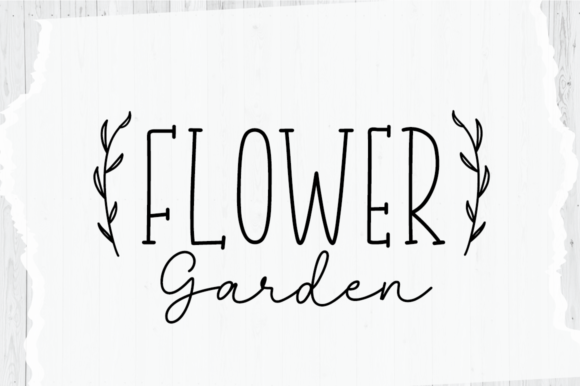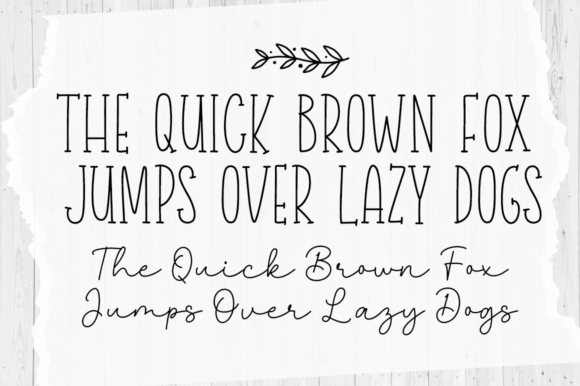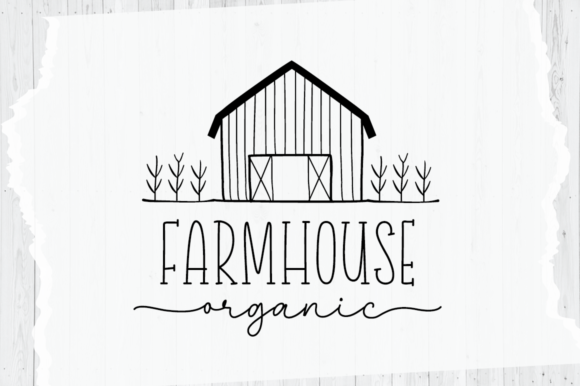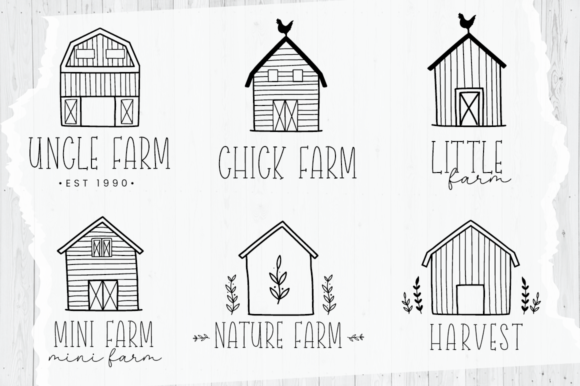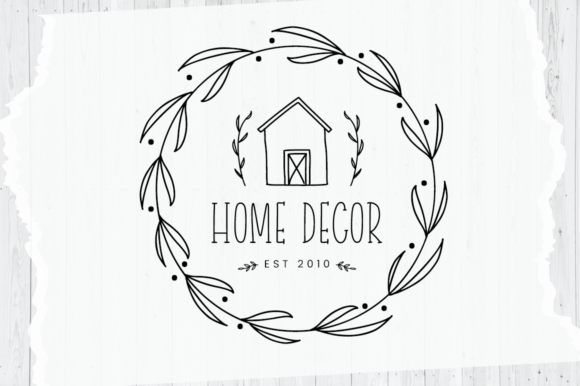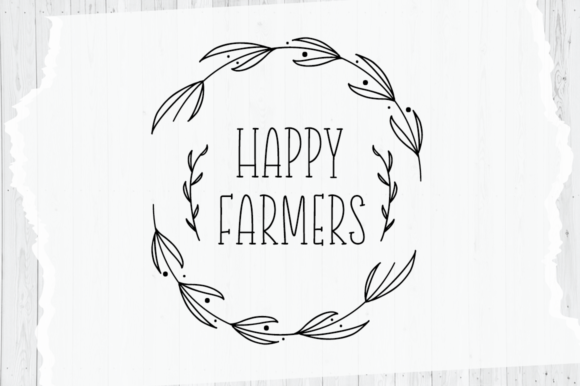
Introducing Family Farmhouse Font: Elevate Your Craft with a Chic and Cheerful Touch
Are you a designer, crafter, or DIY enthusiast looking for the perfect font to add a touch of warmth and personality to your projects? Look no further than the Family Farmhouse Font, a beautifully designed font duo that is sure to become your go-to choice for all your crafting needs.
A Perfect Pair: Two Fonts Designed to Complement Each Other
The Family Farmhouse Font consists of two fonts that are designed to complement each other perfectly. Whether used together or separately, these fonts are ideal for adding a chic and cheerful touch to your craft. The fonts feature a unique and stylish design that is reminiscent of traditional farmhouse signs, with a modern twist that makes them perfect for a wide range of projects.
The Family Farmhouse Font is perfect for a wide range of projects, from crafting and DIY to graphic design and digital art. Here are just a few examples of the many creative possibilities:
- Create beautiful handmade cards and invitations for special occasions
- Design eye-catching signs and labels for your craft business or home
- Add a personal touch to your digital art and graphics
- Make stunning scrapbook pages and photo albums
- Design gorgeous packaging and branding for your products
Why Choose the Family Farmhouse Font?
So why choose the Family Farmhouse Font over other fonts on the market? Here are just a few reasons why this font duo stands out:
- Unique and stylish design: The Family Farmhouse Font features a one-of-a-kind design that is sure to make your projects stand out
- Highly versatile: The font duo can be used for a wide range of projects, from crafting and DIY to graphic design and digital art
Tips for Using the Family Farmhouse Font
Here are a few tips for getting the most out of the Family Farmhouse Font:
- Experiment with different font combinations: Try pairing the Family Farmhouse Font with other fonts to create a unique and stylish look
- Play with color and texture: Add depth and interest to your projects by experimenting with different colors and textures
The Family Farmhouse Font is a beautiful and versatile font duo that is perfect for designers, crafters, and DIY enthusiasts. With its unique and stylish design, PUA coding, and endless creative possibilities, this font is sure to become a staple in your design toolkit. Whether you’re looking to add a touch of warmth and personality to your projects or create stunning visual displays, the Family Farmhouse Font is the perfect choice.